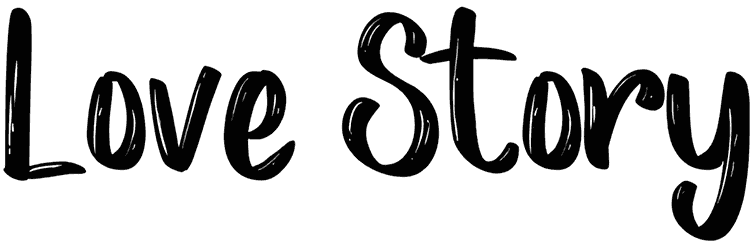
Love Story Font
Love Story is an unconventional scribble font to create joy in your designs and can make any viewer fall in love with its simplicity. This hand-drawn font adds a touch of a child’s drawing to your projects.
That’s why it is an ideal choice for animation posters, toy cover designs, and anything else related to children. So, if you want to put your childhood dreams on paper in the form of a text project, Love Story can tell your history.
Introducing love story font
This font is handmade and Very suitable for those of you who like handcrafted, you can use it for various design purposes.
Very suitable for design purposes that prioritize the natural side of handwriting like, birthday invitation, book cover or music album, for the purposes of correspondence, brochures, business cards and many more.
Apart from its attractive font shape, this font also has some unique alternatives.
Each character has 4 alternative form of heart that appears at the top and bottom as well as the left and right side.you may prefer accessing through the character map on your PC or through the Glyph panel in your design application.
– Rough and clean version